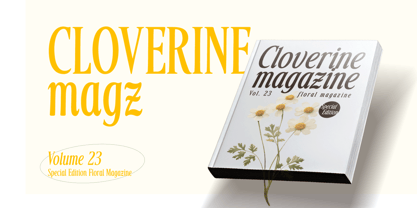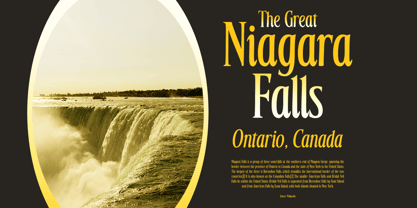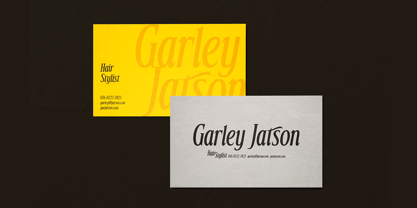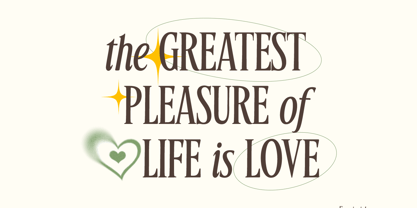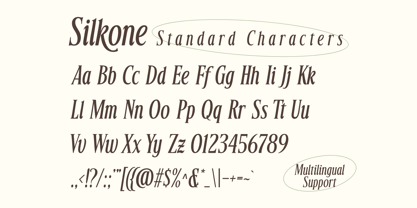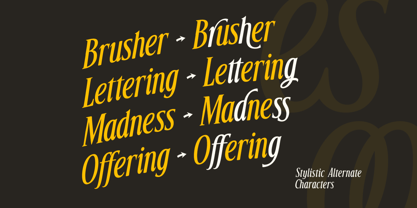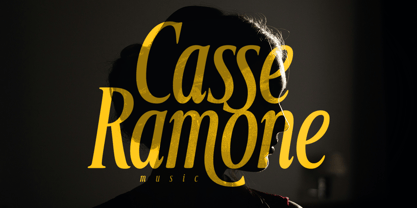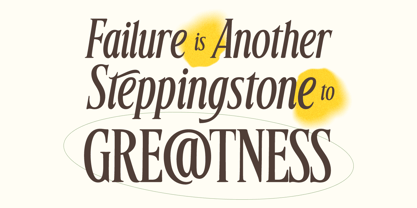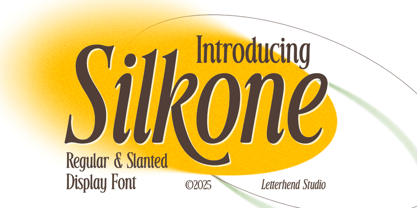
Silkone
La familia tipográfica Silkone fue diseñada por Hendry Juanda y publicada por Letterhend. Silkone contiene 2 estilos y opciones de paquete familiar. Más información sobre esta familia
Silkone is a sleek and refined display font designed to convey sophistication and charm. With its elegant curves and balanced proportions, Silkone offers both a regular and slanted style, making it perfect for versatile applications such as branding, packaging, invitations, editorial layouts, and logos. The font’s flowing strokes and timeless appeal create a sense of warmth and softness, making it ideal for projects that require a touch of class and creativity. Whether you’re aiming for a modern aesthetic or a vintage flair, Silkone effortlessly adapts to bring your designs to life.
Features :
• Uppercase & lowercase
• Numbers and standard punctuation
• Regular & Slanted Version
• Multilingual support
• PUA encoded